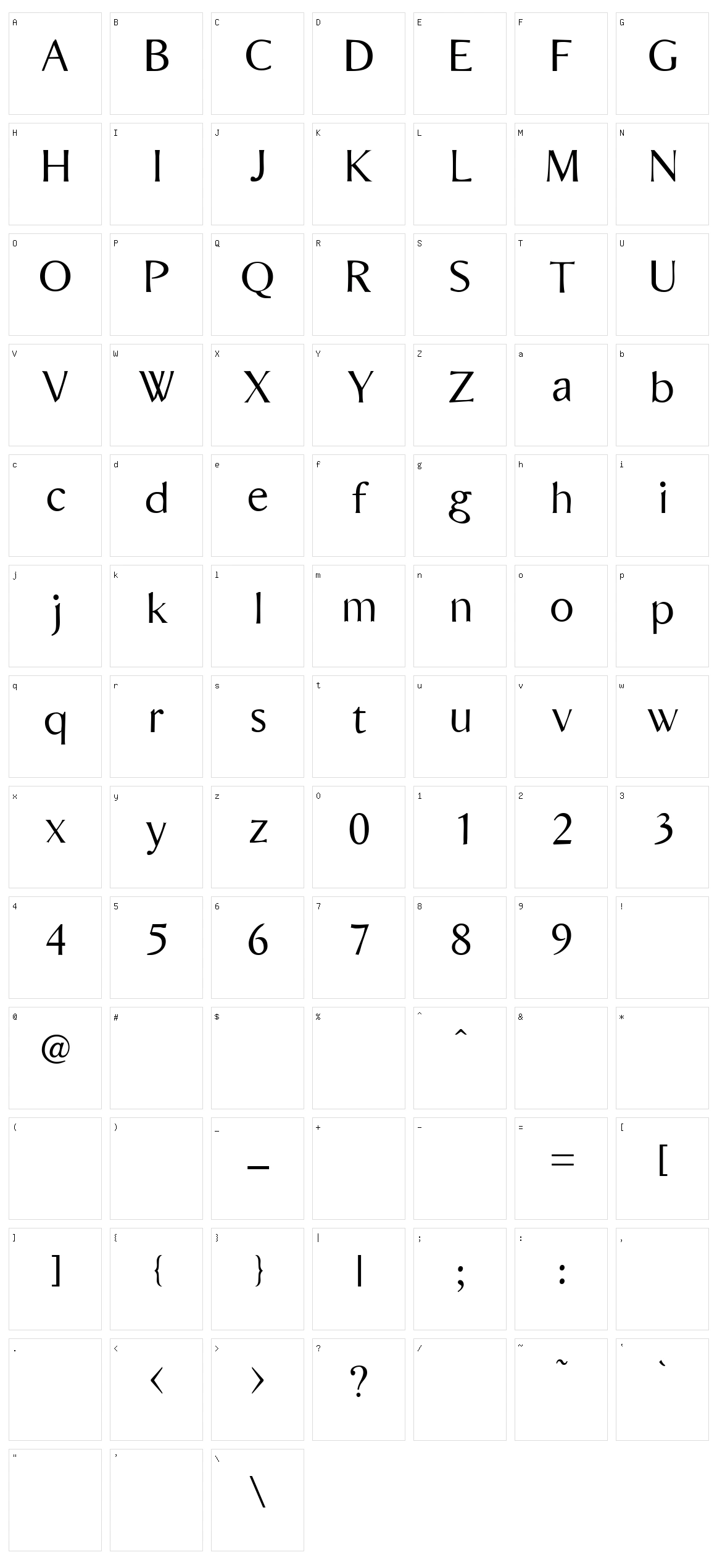
bold-italic. Bordini is a very nice sans-serif font, but with heavies and
lights, quite elegant. Can replace Helvetica, with a special touch. Four
styles : normal, bold, true italics (not simply skewed), and bold-italic.